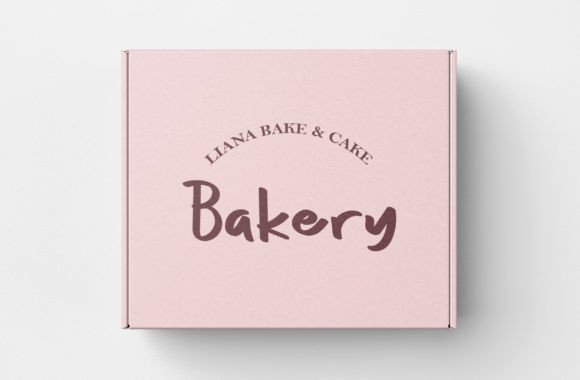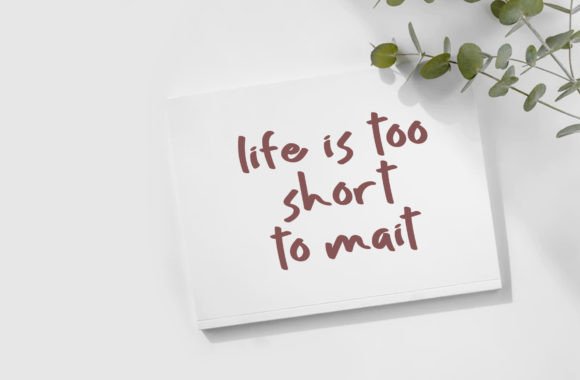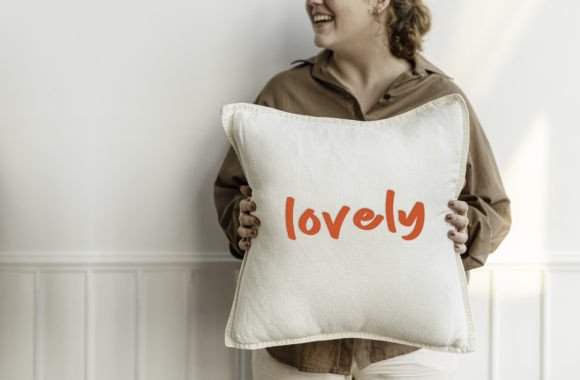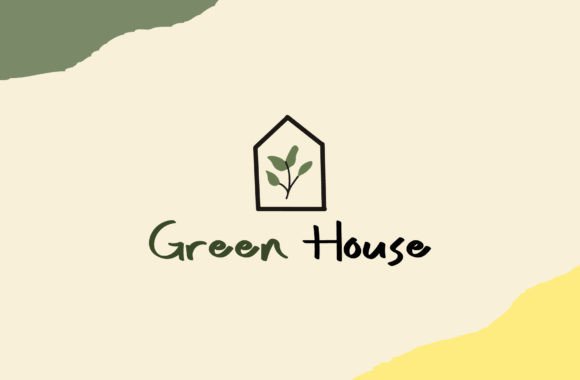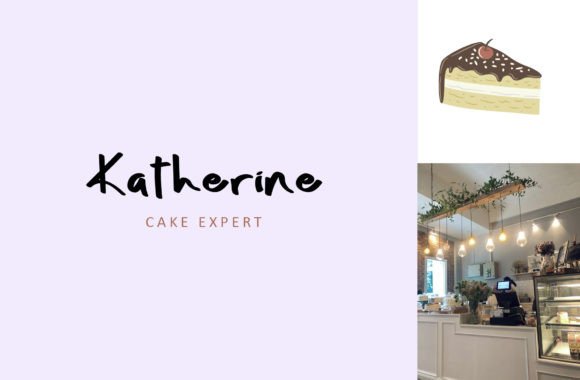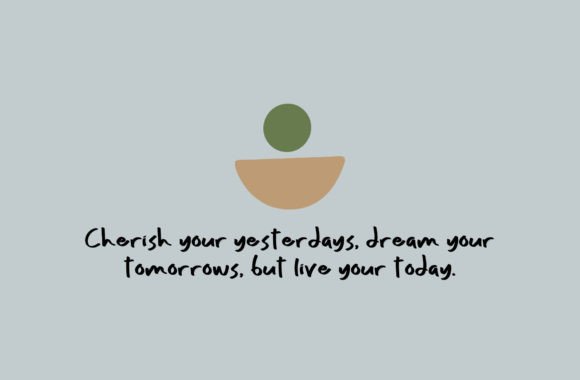
Introduction to Dream Night Font
Dream Night is a modern script font.
Every single letter has been carefully crafted to make your text look beautiful With a modern script style, this font will be perfect for many different projects such as photography, watermark, quotes, blog header, posters, weddings, branding, logos, fashion, apparel, letters, invitations, stationery, etc.
Dream Night Font offers exceptional quality and versatility, making it a valuable addition to your design toolkit. Whether you’re creating for personal projects or commercial use, Dream Night Font delivers professional results.